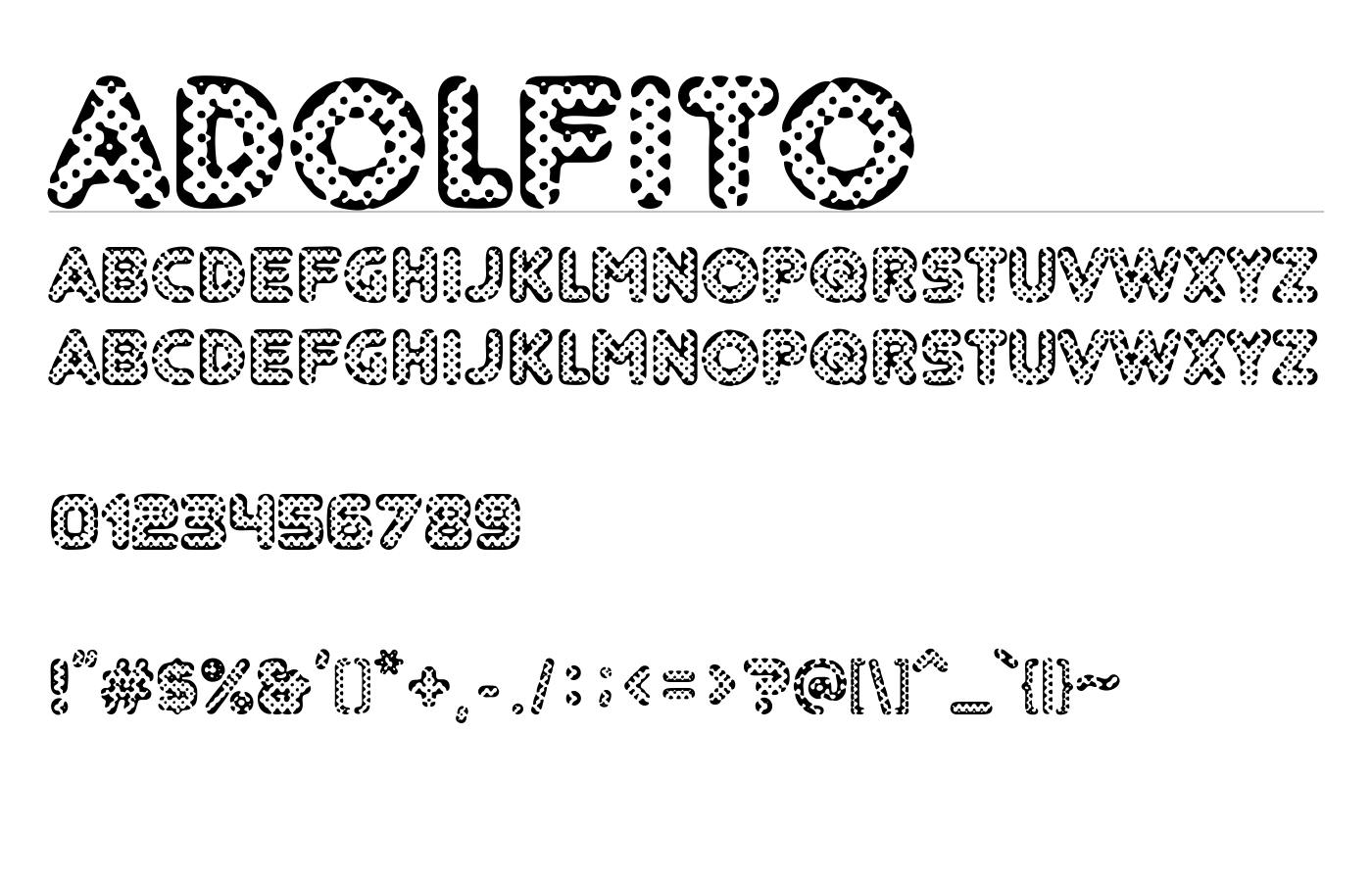
Adolfito is a bold, playful display font featuring rounded, bubble-like letterforms filled with a dotted pattern that evokes a fun, lively spirit. Its uppercase-only style and thick strokes make it perfect for eye-catching headlines, logos, or creative projects that want to communicate energy and whimsy. This font works best in contexts where a joyful, informal vibe is desired, especially in kids’ products, party invitations, or quirky branding.
Adolfito Font
About Adolfito Font
| Font family | Adolfito Font |
| Designer | Jordi Manero Pascual |